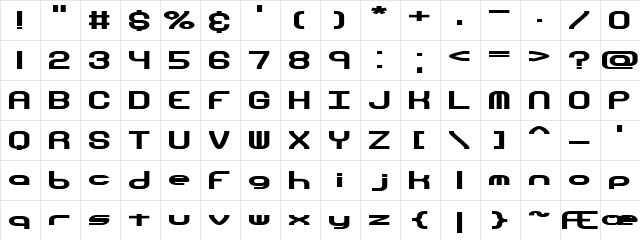
Hyperion Sunset (BRK) Regular
Hyperion Sunset (BRK) offers clean, dependable letterforms without strong stylistic allegiance, making it a practical choice for designers who need flexibility.